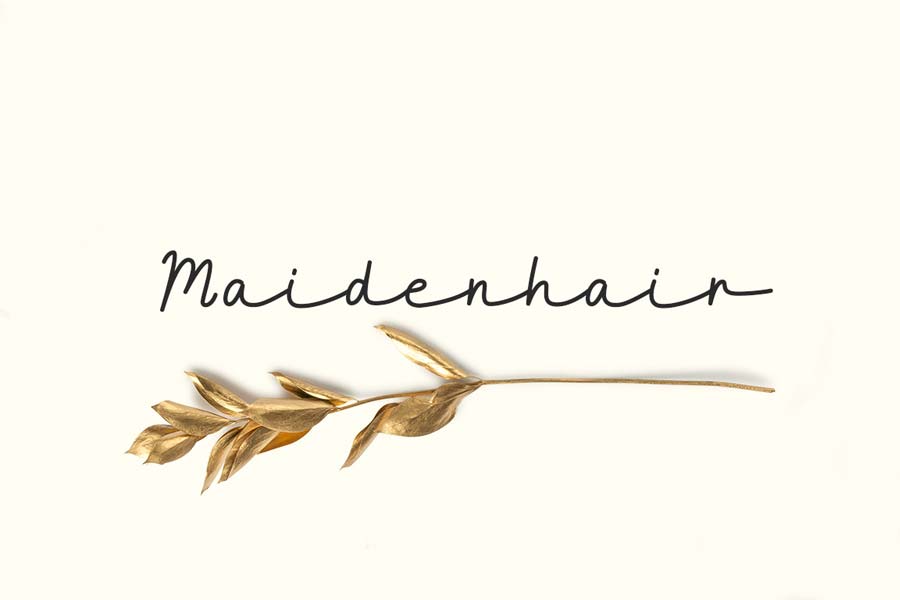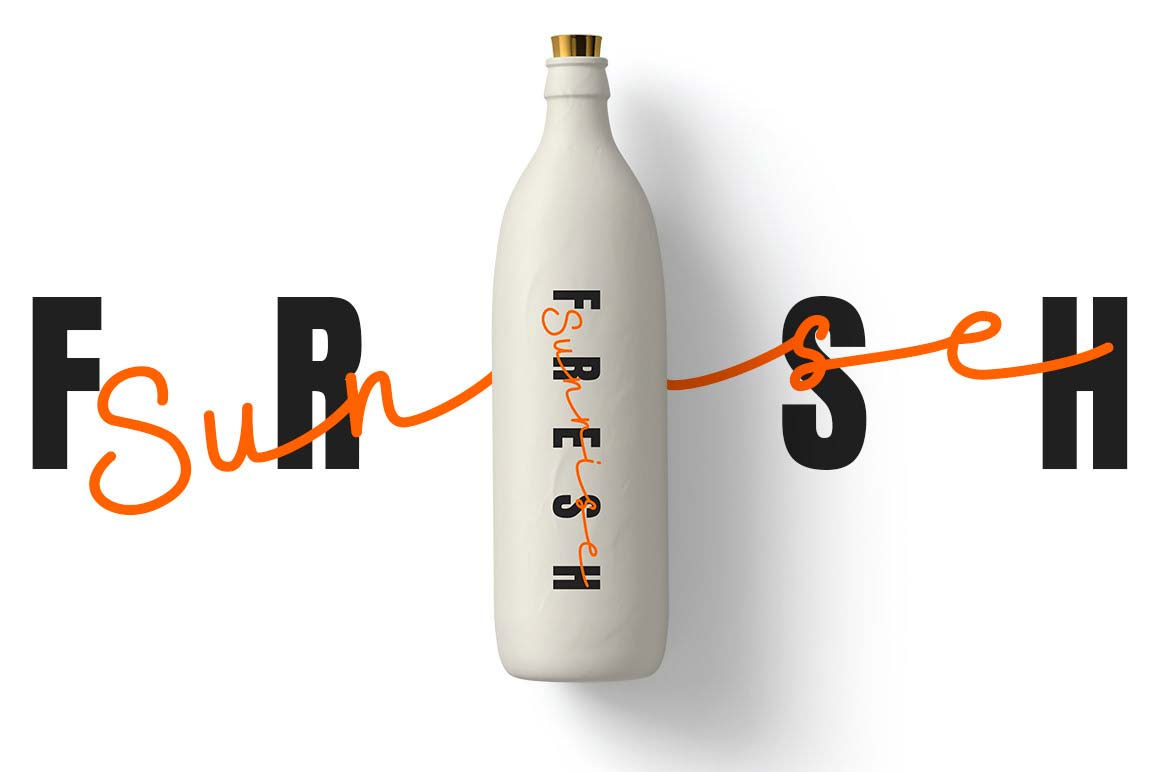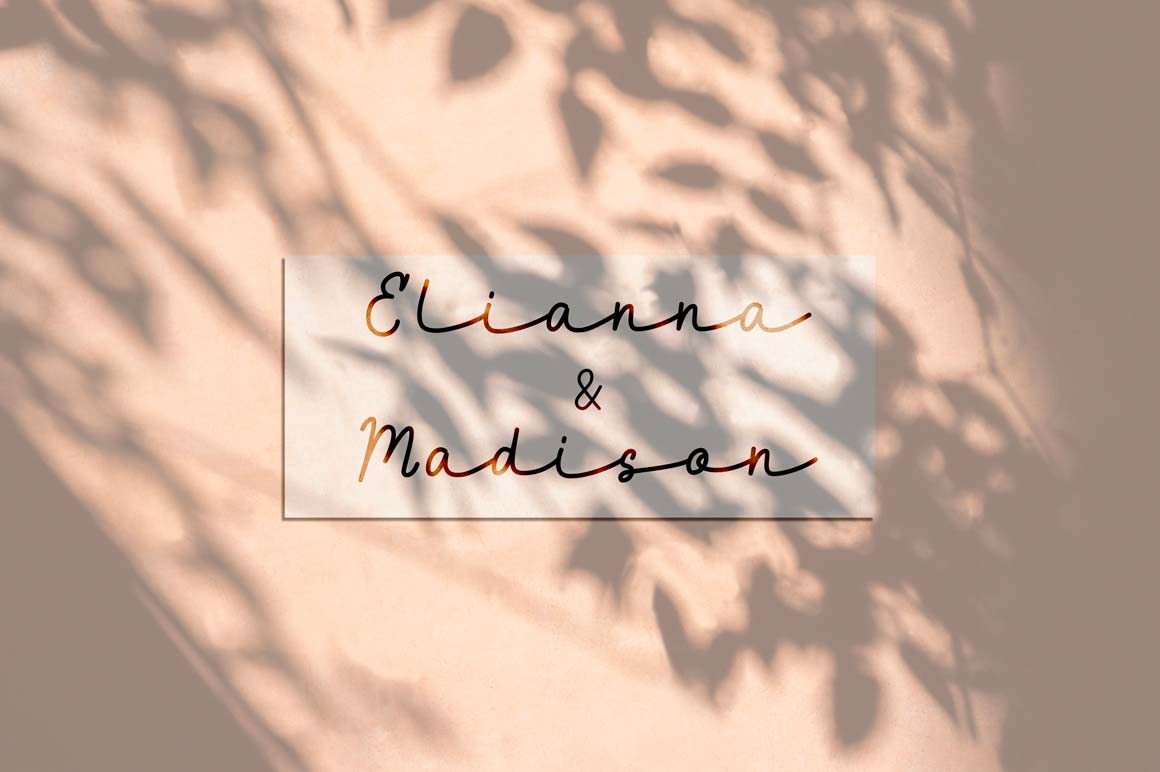
Maidenhair is a free monoline script font with a natural and stylish flow. Each letters features an elongated stroke that connects to another letter, giving a fluidic sense of flow with large breathing space between them.
- Designer: Katari Studio
- Category: Script